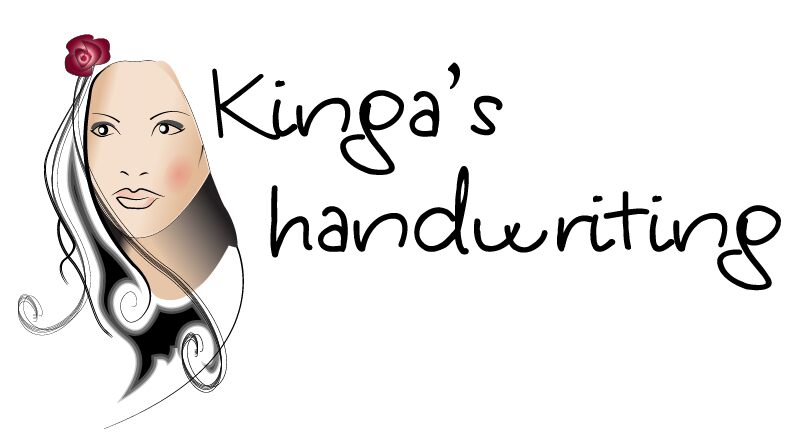
Kingashandwriting by Roland Huse is a free handwritten font with tall, loosely formed letters and an easygoing line. Stroke widths shift gently, and uneven joins retain the quirks of quick pen work. The broad capitals are especially lively.
Loose pen marks echo informal sketches, fitting illustrated cafe menus and community posters. They also give music artwork the directness of a hand-marked demo sleeve. Invitations and stationery are another natural home for its long strokes.
This font is based on my sister’s handwriting. Each character was created as a vector; no scans were used.